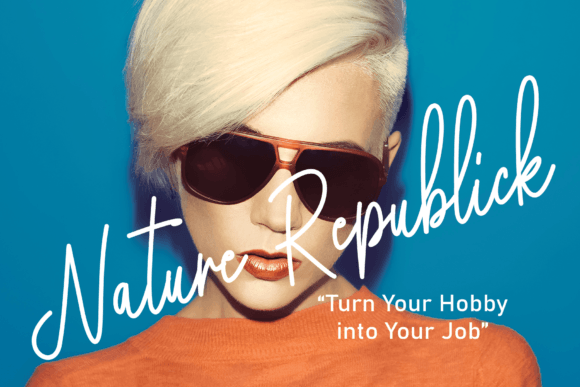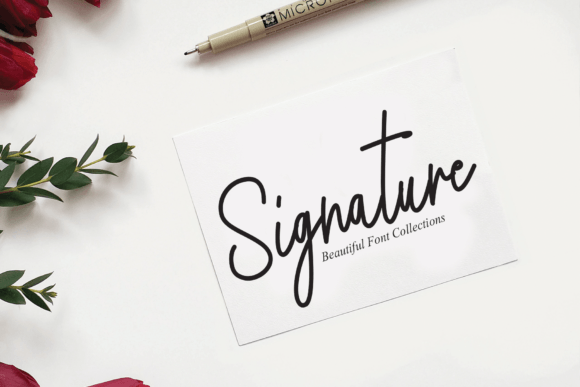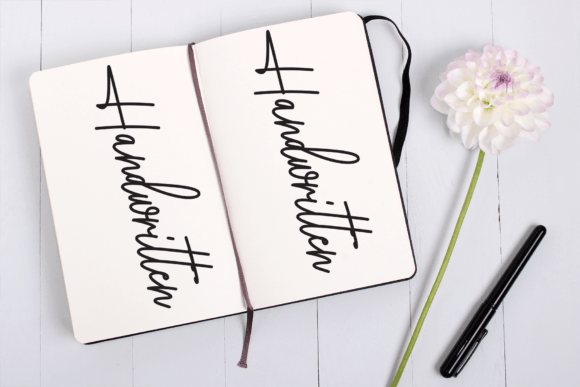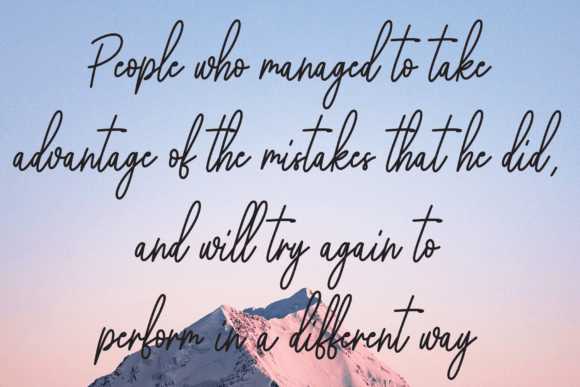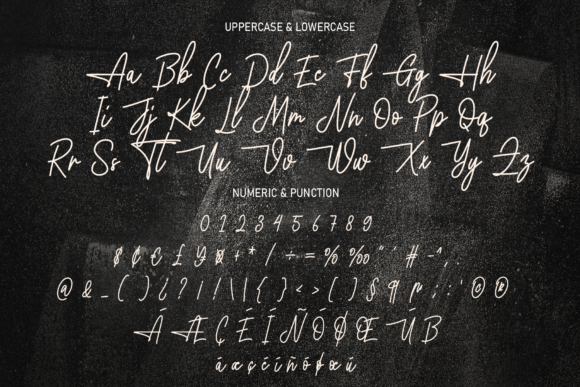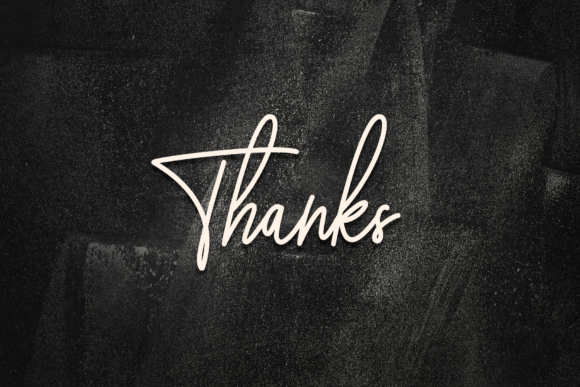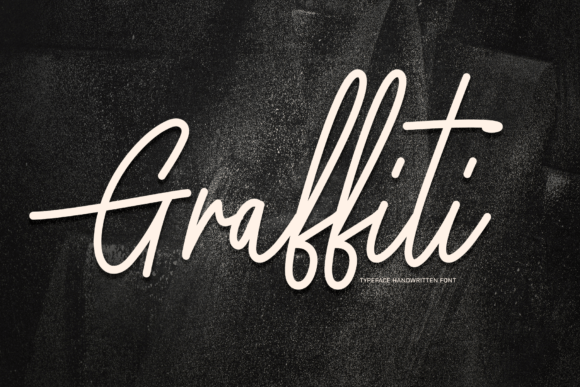
Unleashing Creativity with Graffiti Font: A Dazzling Script Font
Graffiti is a dazzling script font that has been making waves in the design world. This font is neatly crafted and highly detailed, making it a wonderful asset to your font library. Whether you’re a designer, crafter, or simply someone who loves to express themselves through creative projects, Graffiti font is sure to enhance any creation.
What is Graffiti Font?
Graffiti font is a type of script font that is inspired by the art of graffiti. It is characterized by its bold, expressive lines and unique letterforms. This font is perfect for adding a touch of personality and style to any project, from posters and flyers to logos and branding materials.
Features of Graffiti Font
- Neatly Crafted: Graffiti font is carefully crafted to ensure that each letterform is precise and detailed. This attention to detail makes it perfect for use in a variety of projects, from large-scale posters to small-scale business cards.
- Highly Detailed: The level of detail in Graffiti font is impressive, with intricate lines and curves that give it a unique and artistic feel.
- Versatile: Graffiti font is versatile and can be used in a variety of contexts, from formal to informal. It’s perfect for use in creative projects, such as art journals, scrapbooking, and mixed media.
Benefits of Using Graffiti Font
There are many benefits to using Graffiti font in your creative projects. Here are just a few:
- Adds Personality: Graffiti font adds a touch of personality and style to any project. Its unique letterforms and bold lines make it perfect for standing out in a crowded design landscape.
- Enhances Creativity: Graffiti font is designed to inspire creativity and self-expression. Its artistic feel and unique style make it perfect for use in creative projects, such as art journals and mixed media.
- Easy to Use: Graffiti font is easy to use and can be incorporated into a variety of projects, from digital designs to hand-crafted creations.
Uses of Graffiti Font
Graffiti font can be used in a variety of contexts, including:
- Graphic Design: Graffiti font is perfect for use in graphic design projects, such as posters, flyers, and logos.
- Branding: Graffiti font can be used to create unique and memorable branding materials, such as business cards and letterheads.
- Art and Crafting: Graffiti font is perfect for use in art journals, scrapbooking, and mixed media projects.
Tips for Using Graffiti Font
Here are a few tips for using Graffiti font in your creative projects:
- Experiment with Colors: Graffiti font looks great in a variety of colors, so don’t be afraid to experiment and find the perfect hue for your project.
- Mix and Match: Graffiti font can be paired with other fonts and design elements to create a unique and eye-catching look.
- Keep it Simple: While Graffiti font is bold and expressive, it’s best to keep your design simple and uncluttered to allow the font to shine.
Graffiti font is a dazzling script font that is sure to enhance any creative project. Its unique letterforms, bold lines, and highly detailed design make it perfect for use in a variety of contexts, from graphic design to art and crafting. Whether you’re a seasoned designer or just starting out, Graffiti font is a wonderful asset to have in your font library.